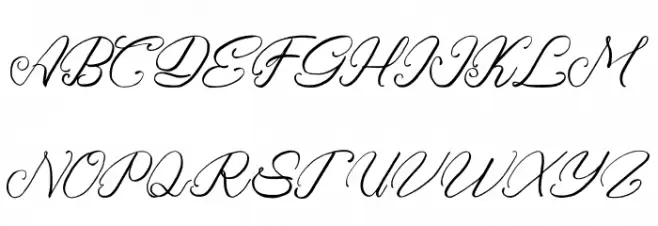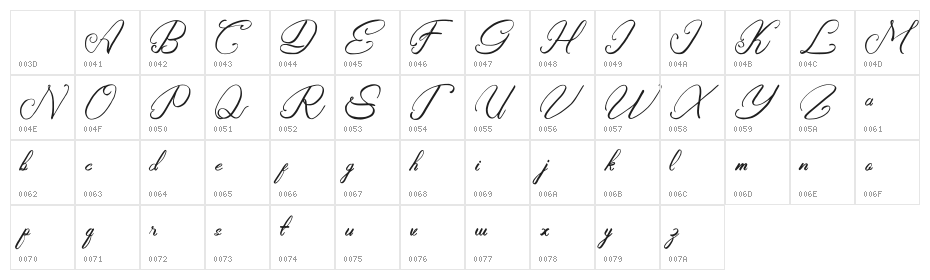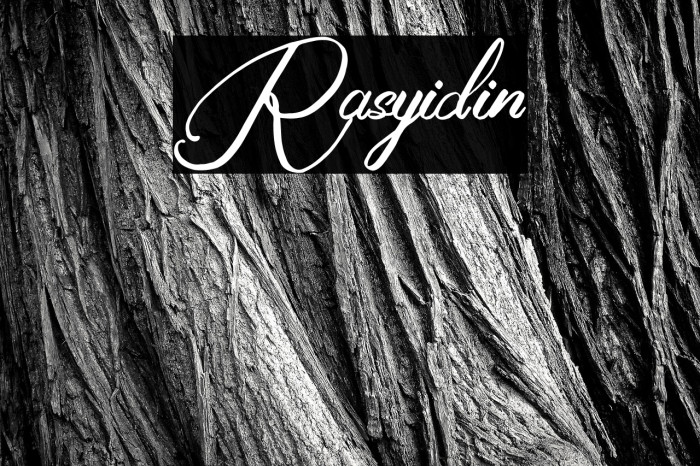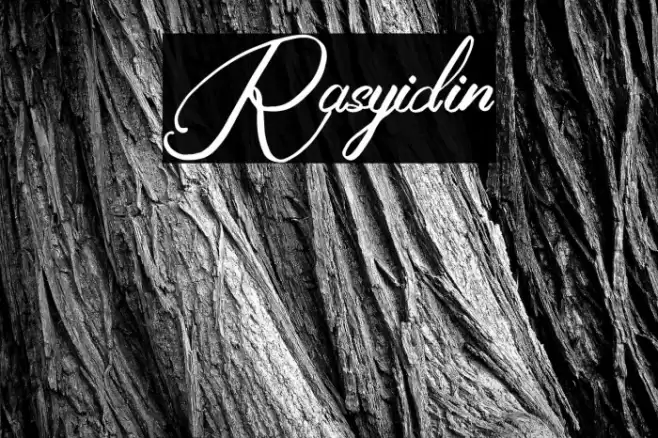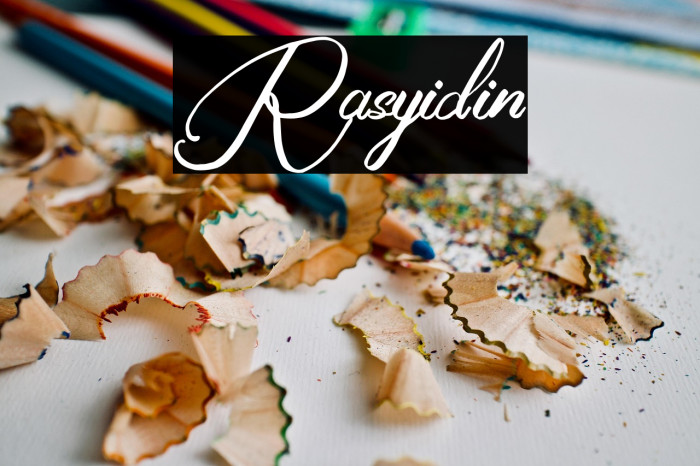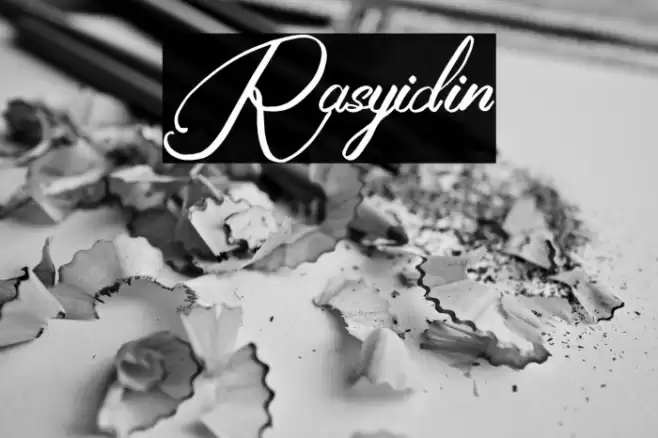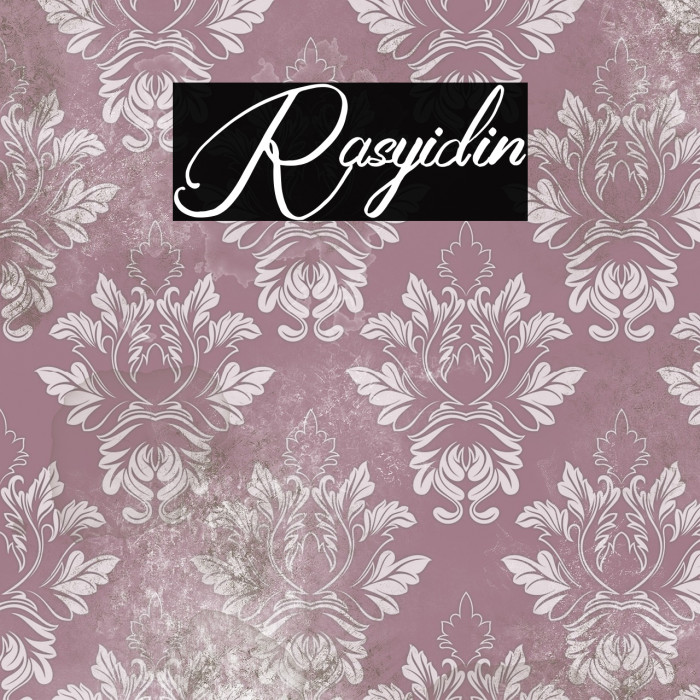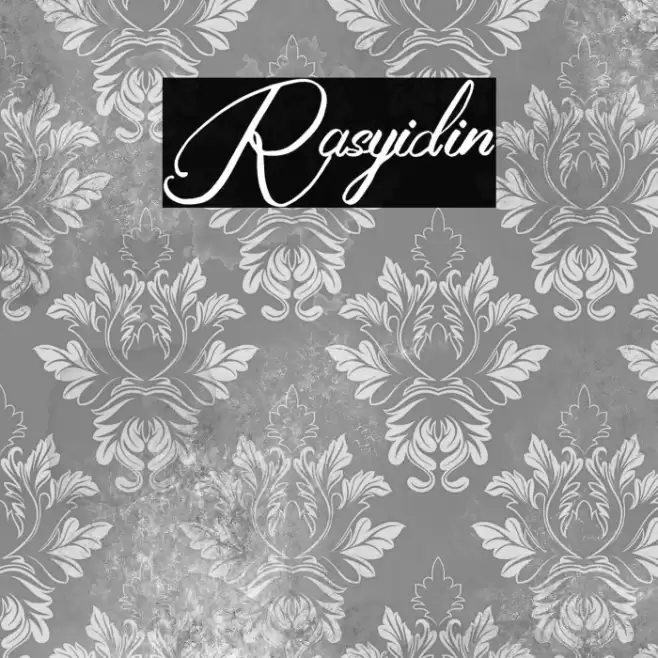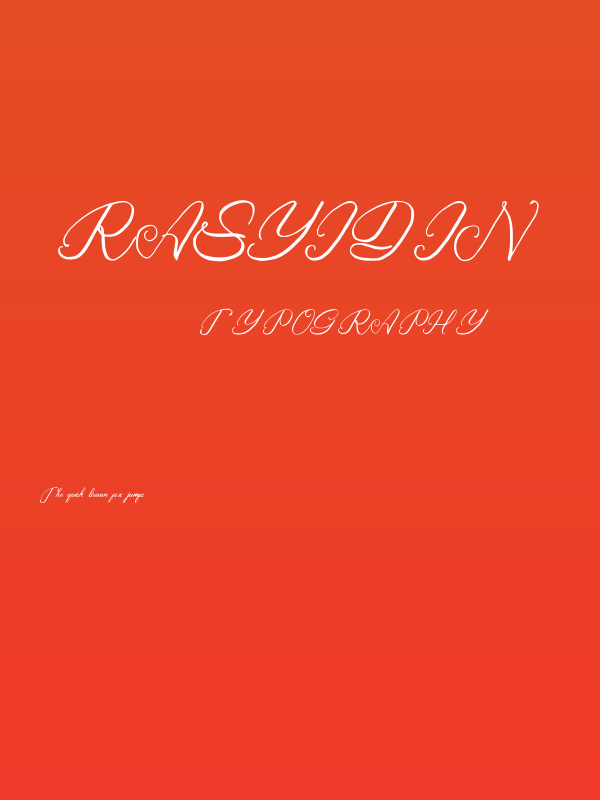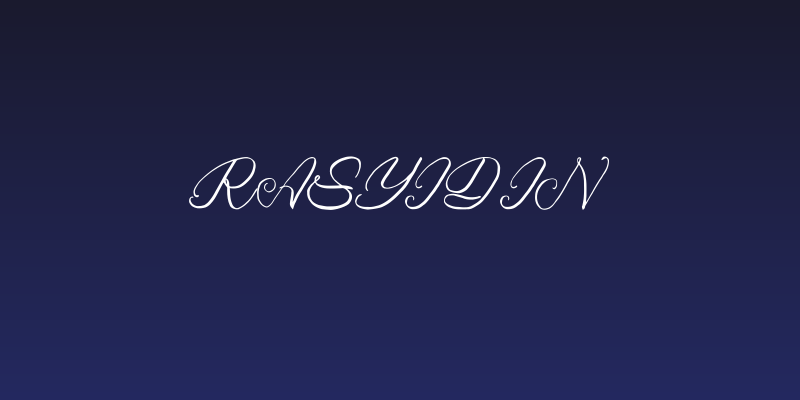
Rasyidin Font
Rasyidin Description
This elegant script font features flowing, interconnected letters that mimic the fluidity of cursive handwriting. The uppercase letters are ornate and decorative, with sweeping curves and loops that add a touch of sophistication. The lowercase letters maintain a consistent style, offering a smooth transition between characters. The font's overall appearance is graceful and refined, making it suitable for formal invitations, elegant branding, and artistic projects. The characters are well-spaced, ensuring readability while maintaining the font's decorative nature.